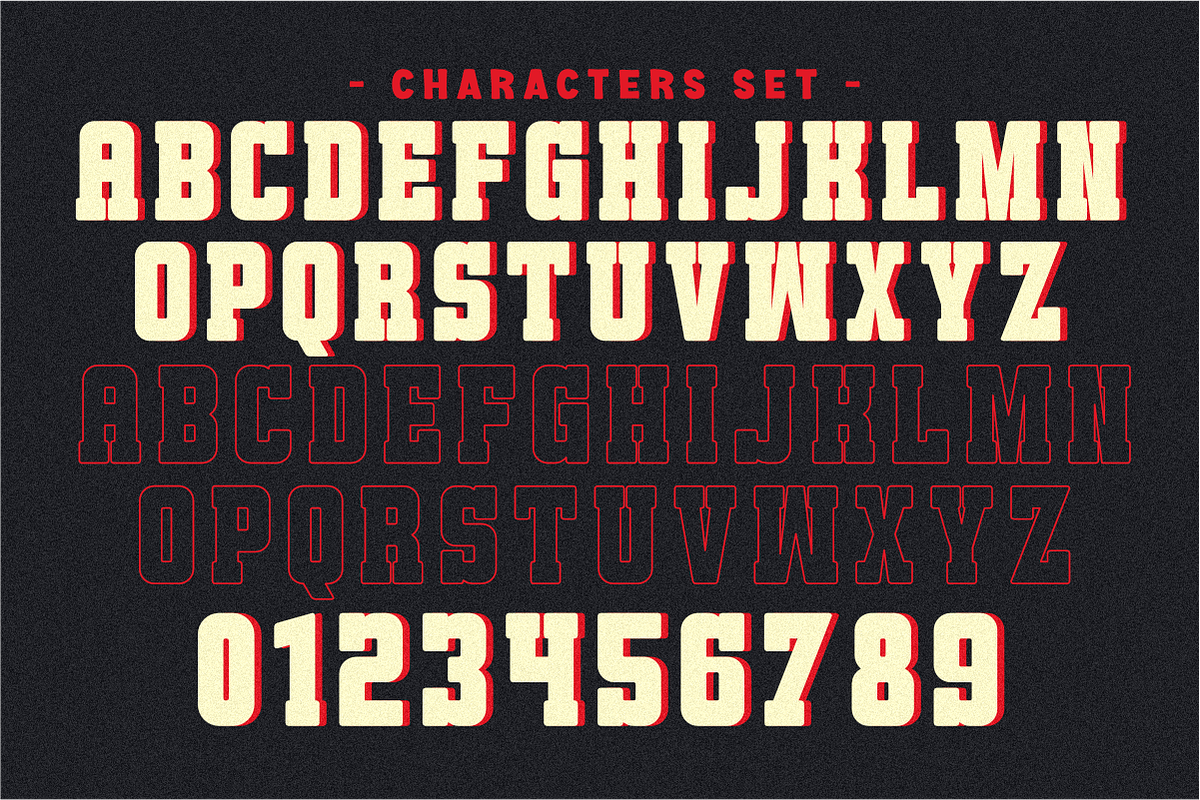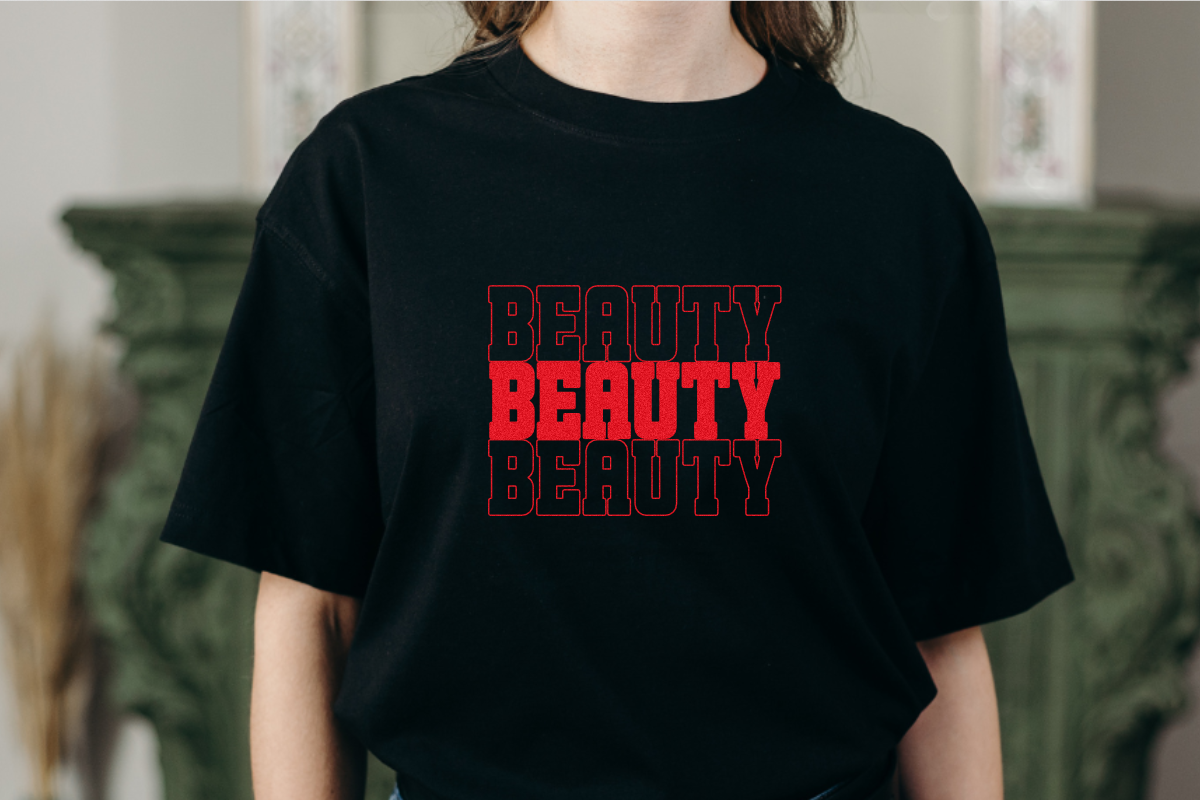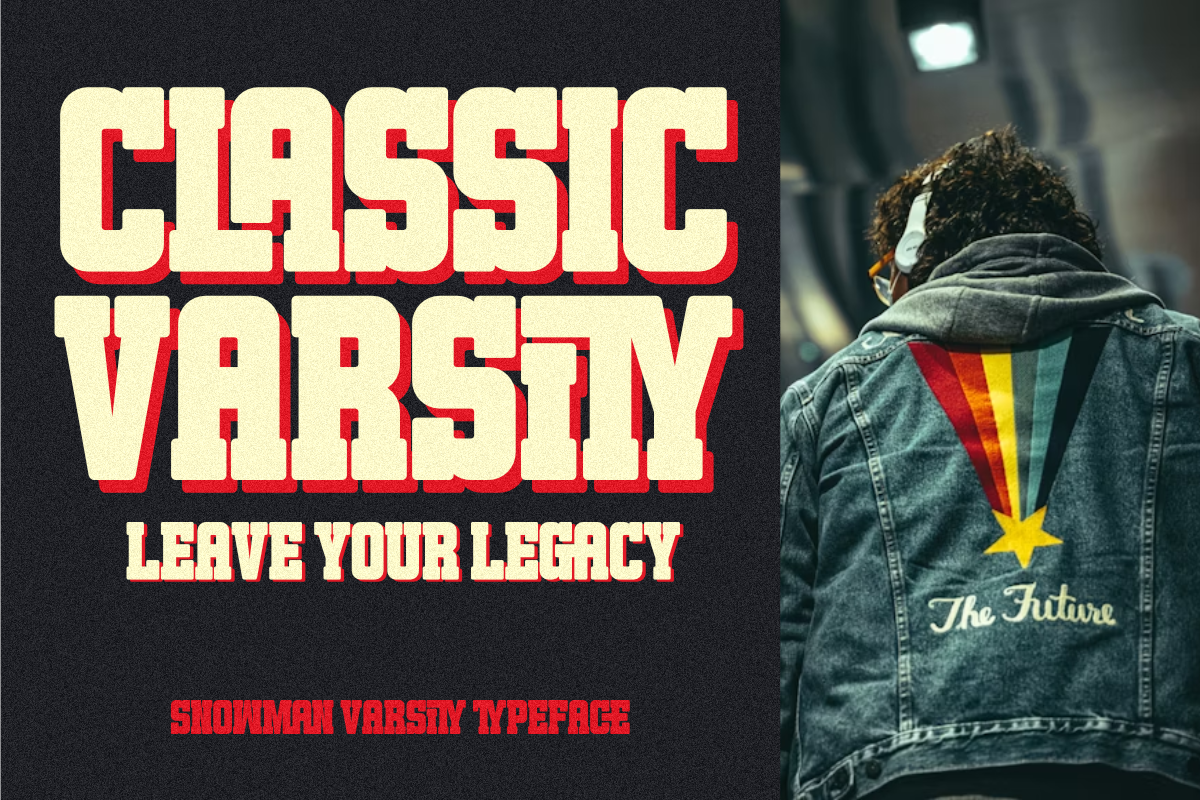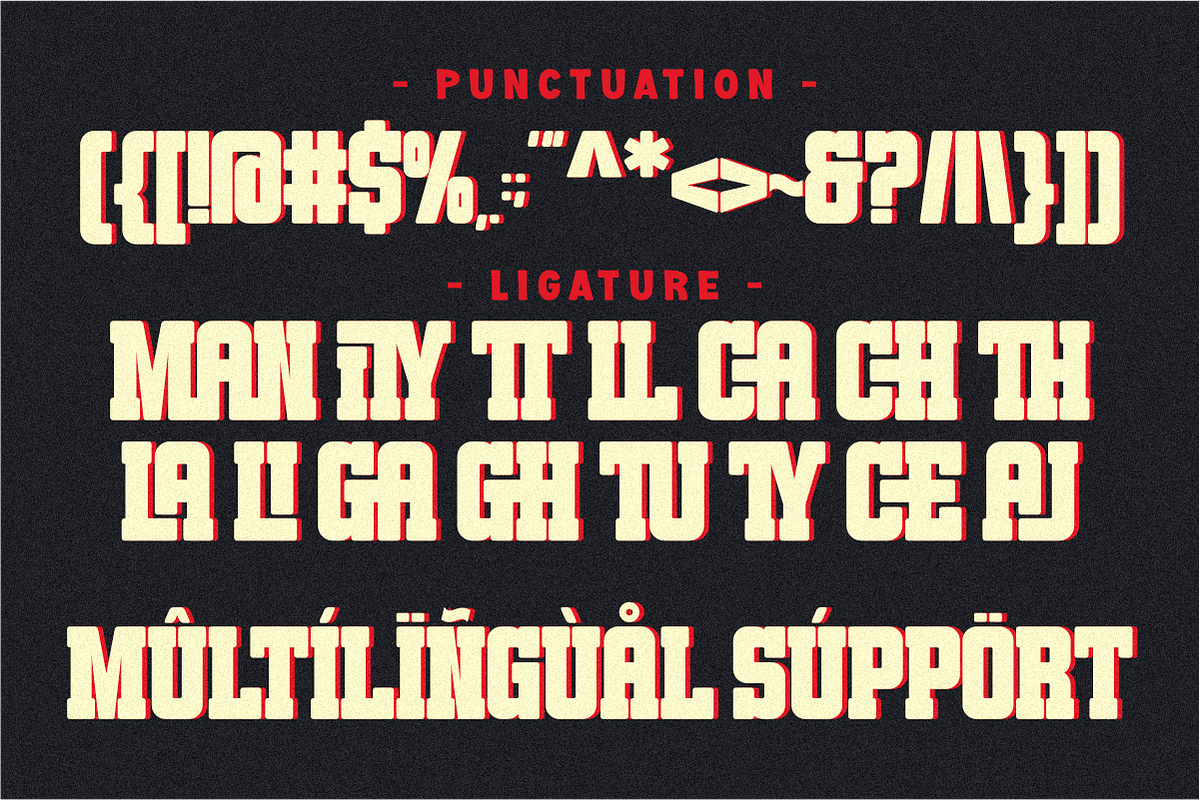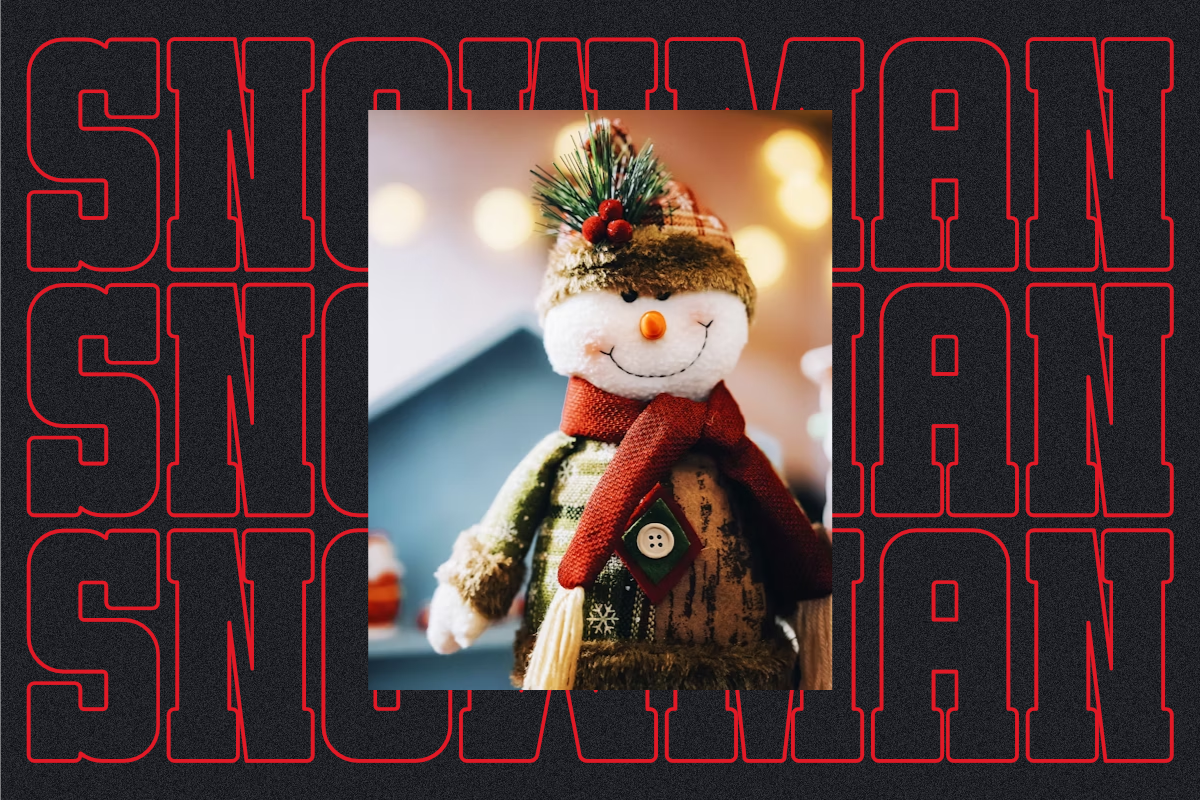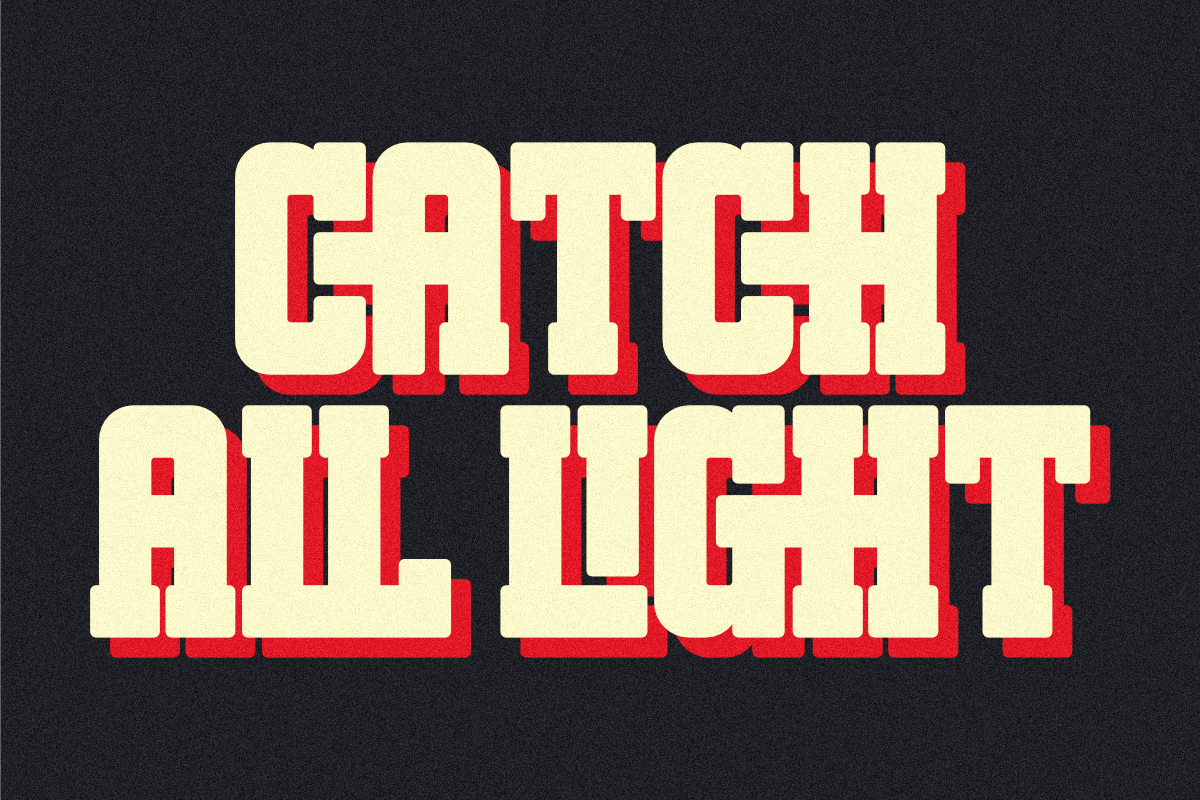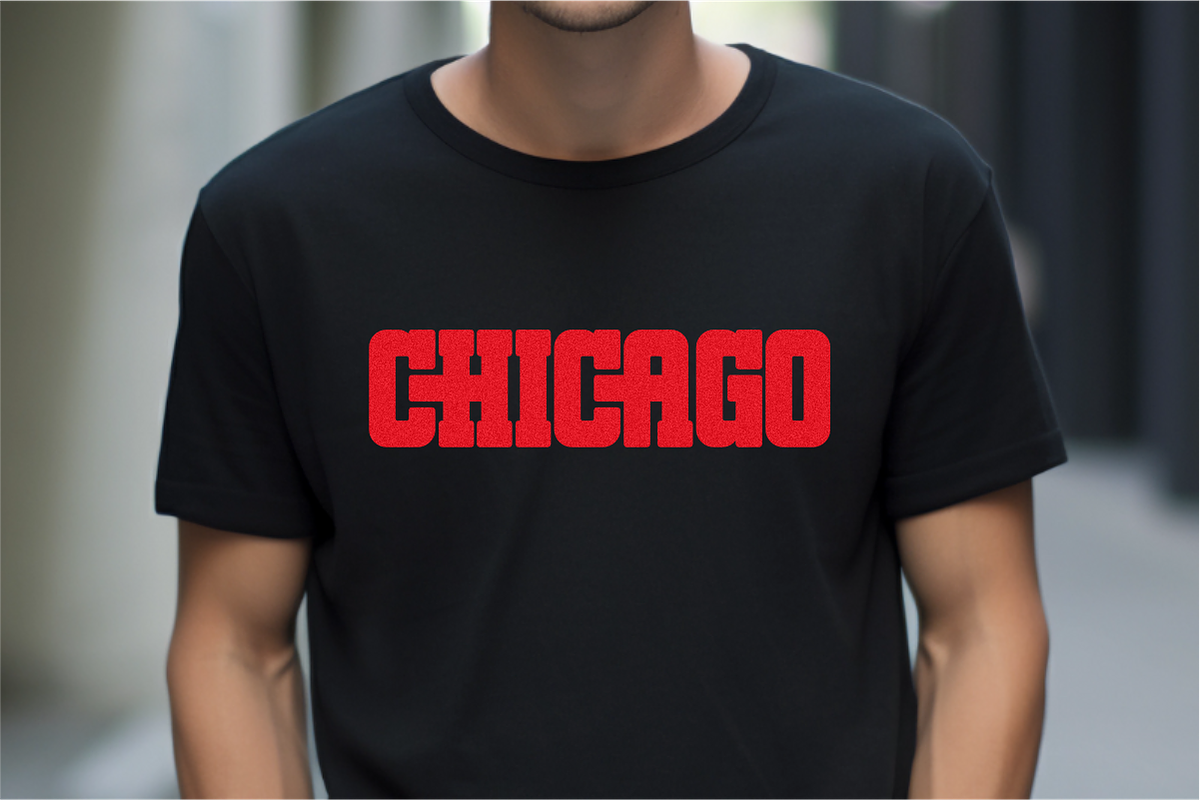
Snowman Varsity - Condensed Slab
Snowman Varsity is an ultra condensed slab serif font with bold character and a strong vintage sports style. It comes with Regular and Outline versions, complete with ligatures that give your typography a dynamic and professional look. Perfect for college designs, varsity jackets, sports logos, posters, and vintage branding projects. Its solid form and condensed shape make it ideal for impactful headlines and bold displays.